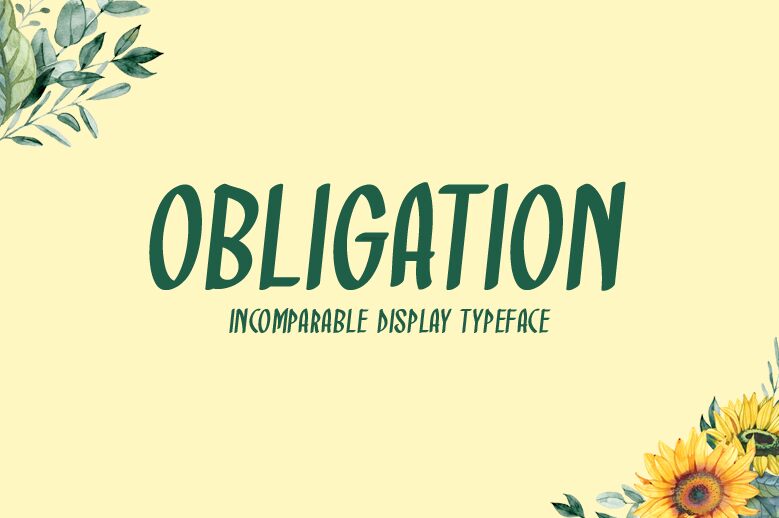
Obligation, a captivating handwritten font by Md Shohail Bhuian, offers a unique and artistic touch to your projects.
Its condensed width creates an elegant and sophisticated look, perfect for wedding invitations, fashion magazines, or branding materials. With its bold strokes and delicate curves, Obligation effortlessly adds a touch of charm to any design. Whether you're creating a logo for a high-end boutique or designing an eye-catching poster for an art exhibition, this font will surely make your work stand out from the crowd.